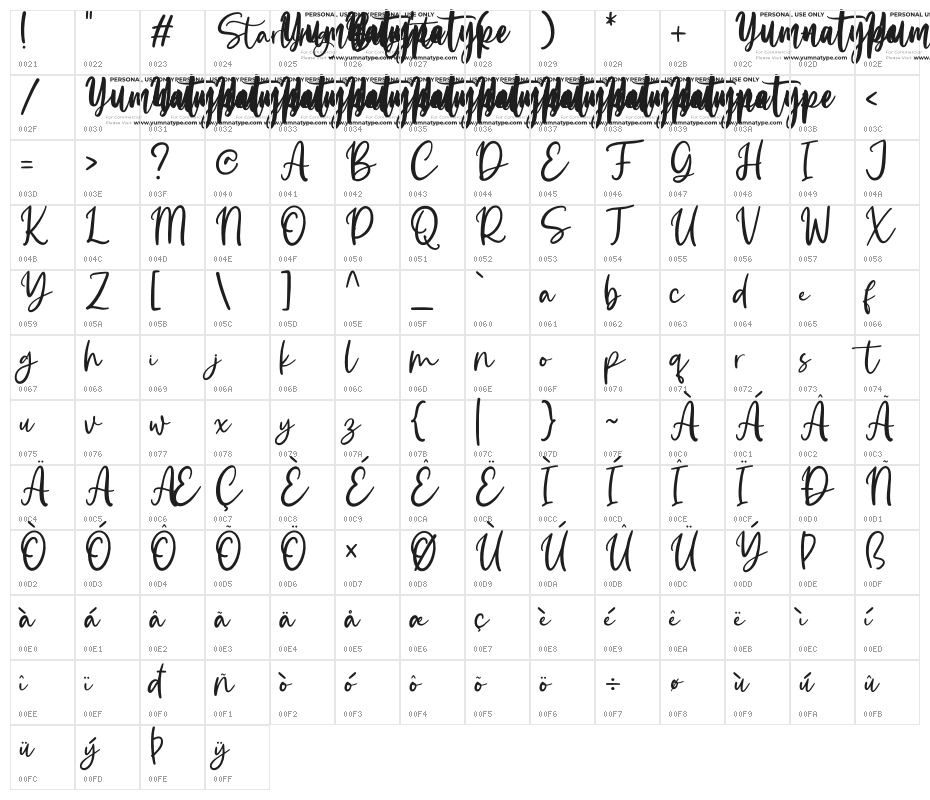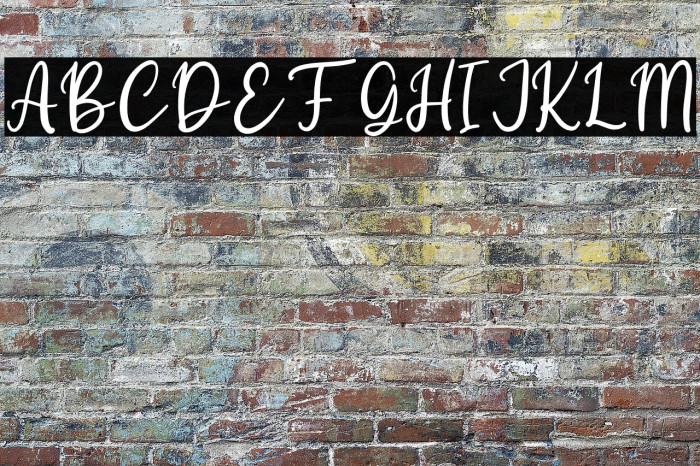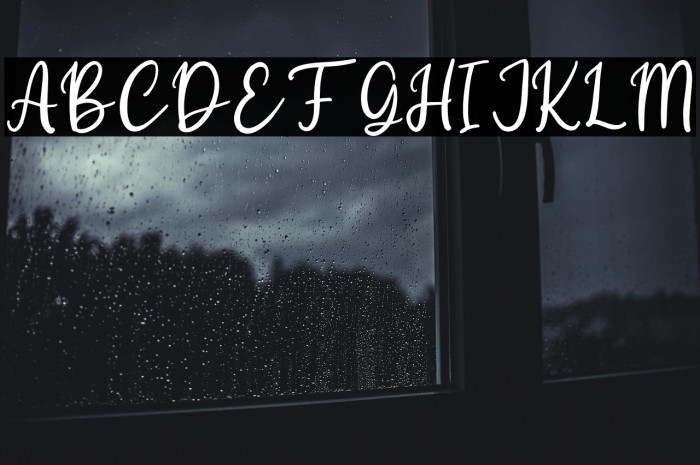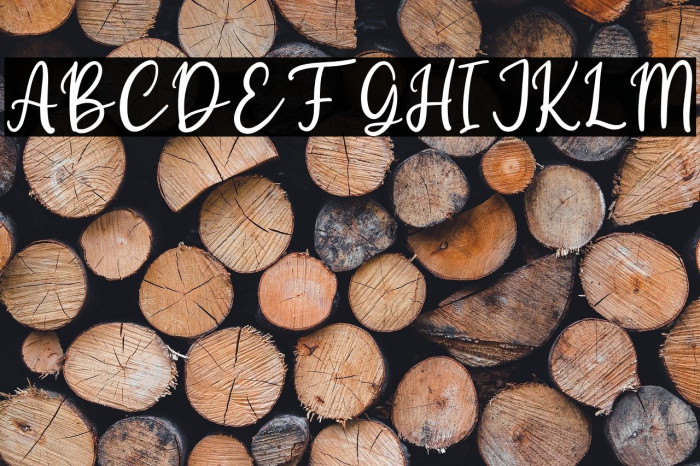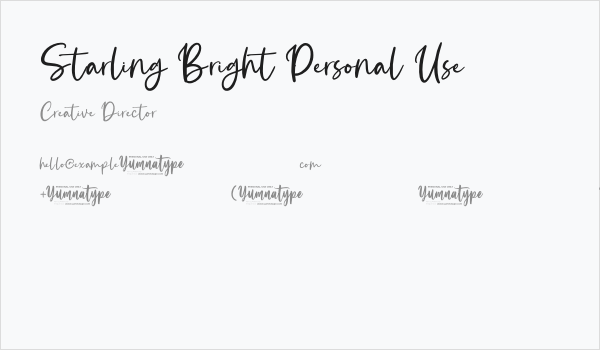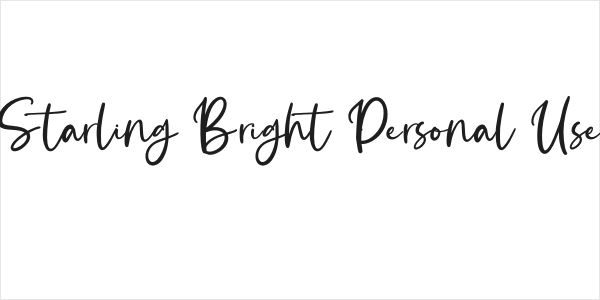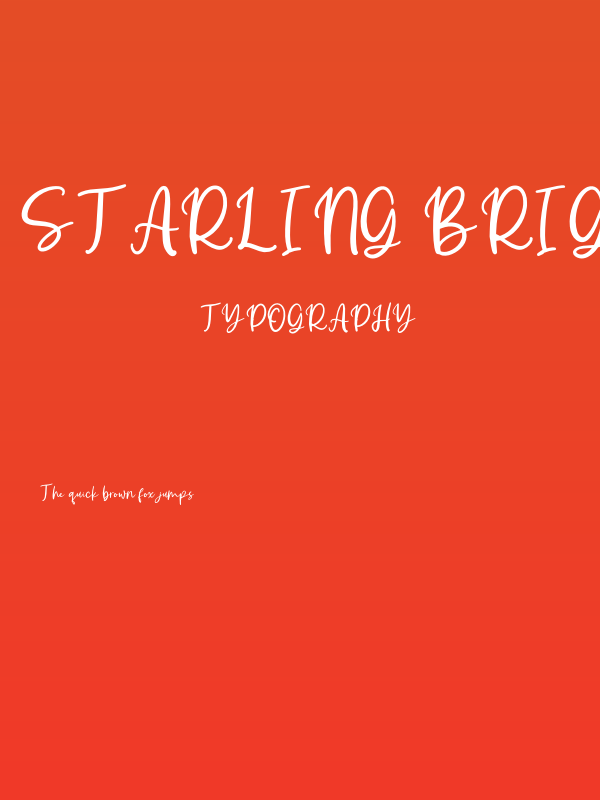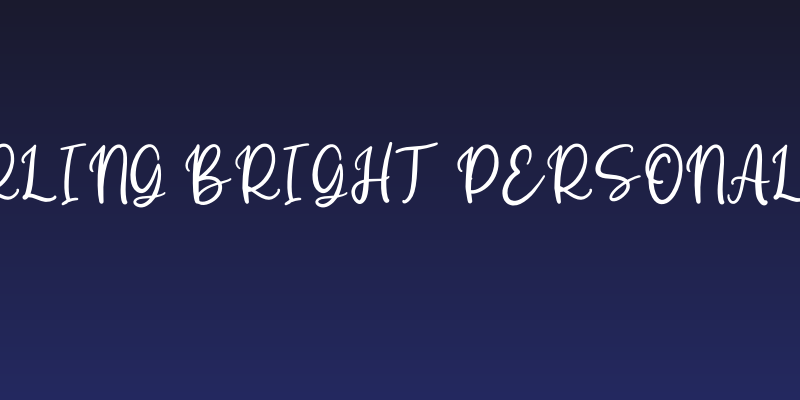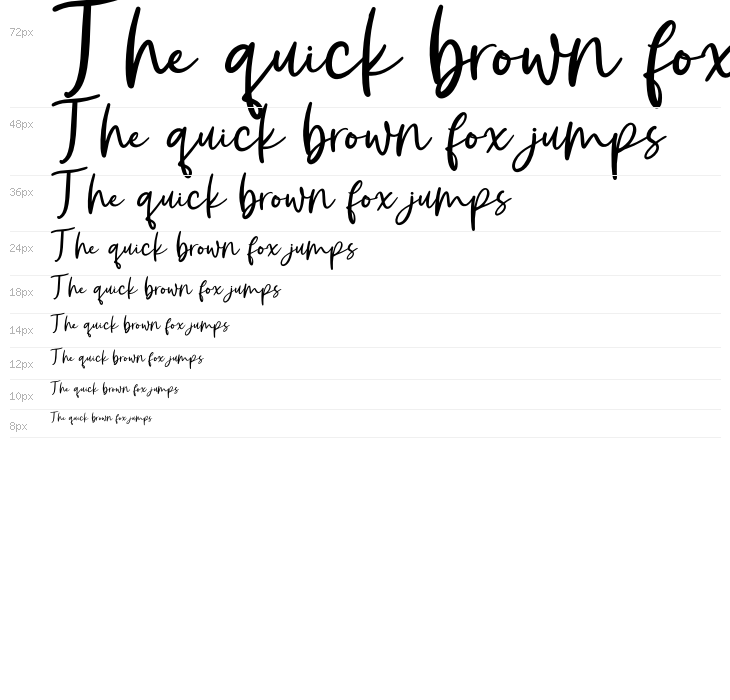
Starling Bright Personal Use Font
Starling Bright Personal Use Description
This font features a flowing, cursive style that mimics elegant handwriting. The uppercase letters are tall and slender with graceful loops and curves, while the lowercase letters maintain a consistent fluidity, enhancing the handwritten effect. The strokes vary in thickness, providing a dynamic and lively appearance. This font is designed to convey a sense of elegance and personal touch, making it suitable for creative and expressive projects.
| Overall Style | Elegant, Handwritten |
| Proposed Projects | Ideal for wedding invitations, greeting cards, personal branding, and artistic projects requiring a personal touch. |